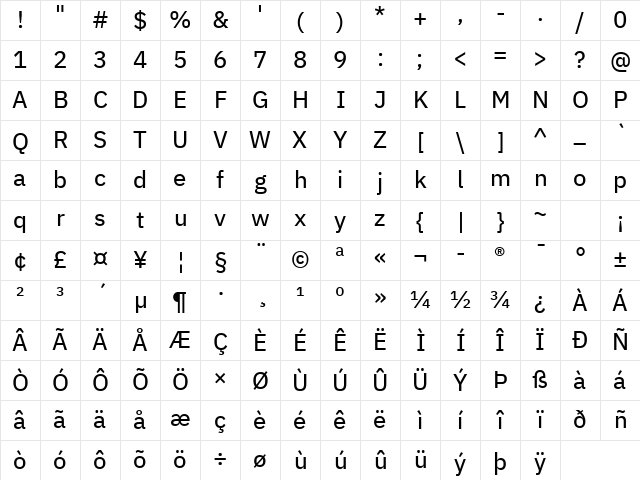
IBM Plex Devanagari Text Regular
Foundry: Bold Monday
Designer: Mike Abbink, Paul van der Laan, Pieter van Rosmalen, Erin McLaughlin
Design Context for IBM Plex Devanagari Text
IBM Plex Devanagari Text is a composed and adaptable typeface that performs quietly and consistently across a wide range of design contexts.